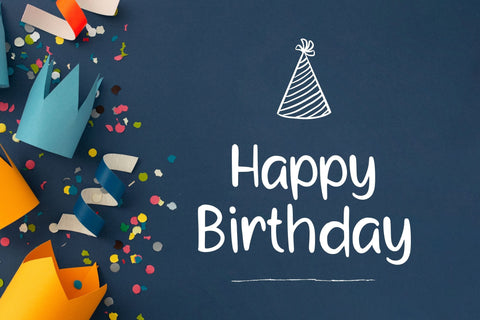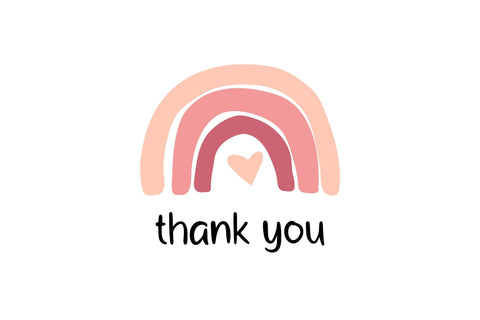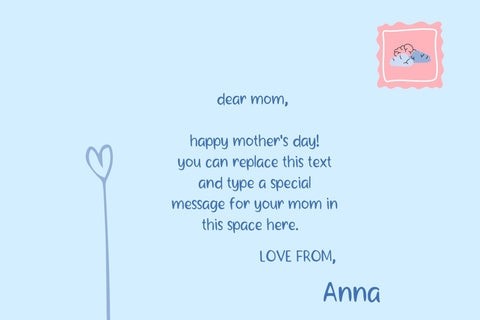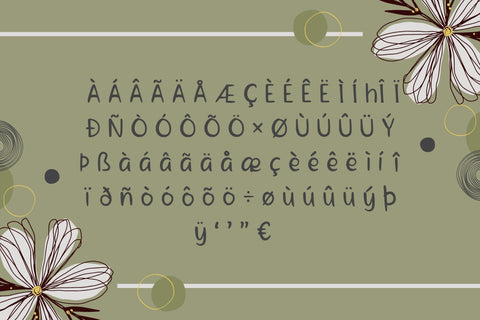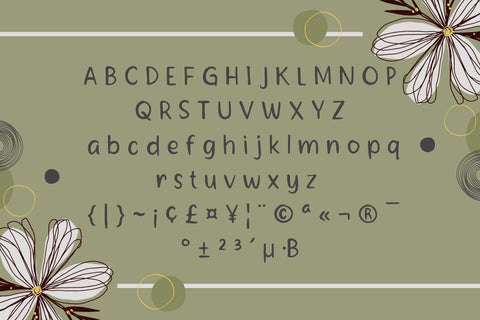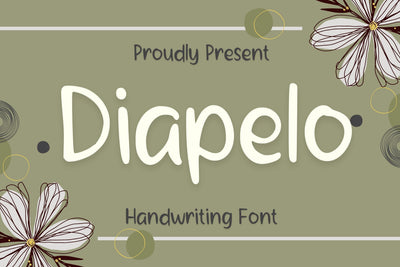
Diapelo Font
Diapelo is a friendly and casual handwritten font. Whether you're using it for crafts, digital design, presentations, or making greeting cards, this font has the potential to become your favorite go-to font, no matter the occasion!